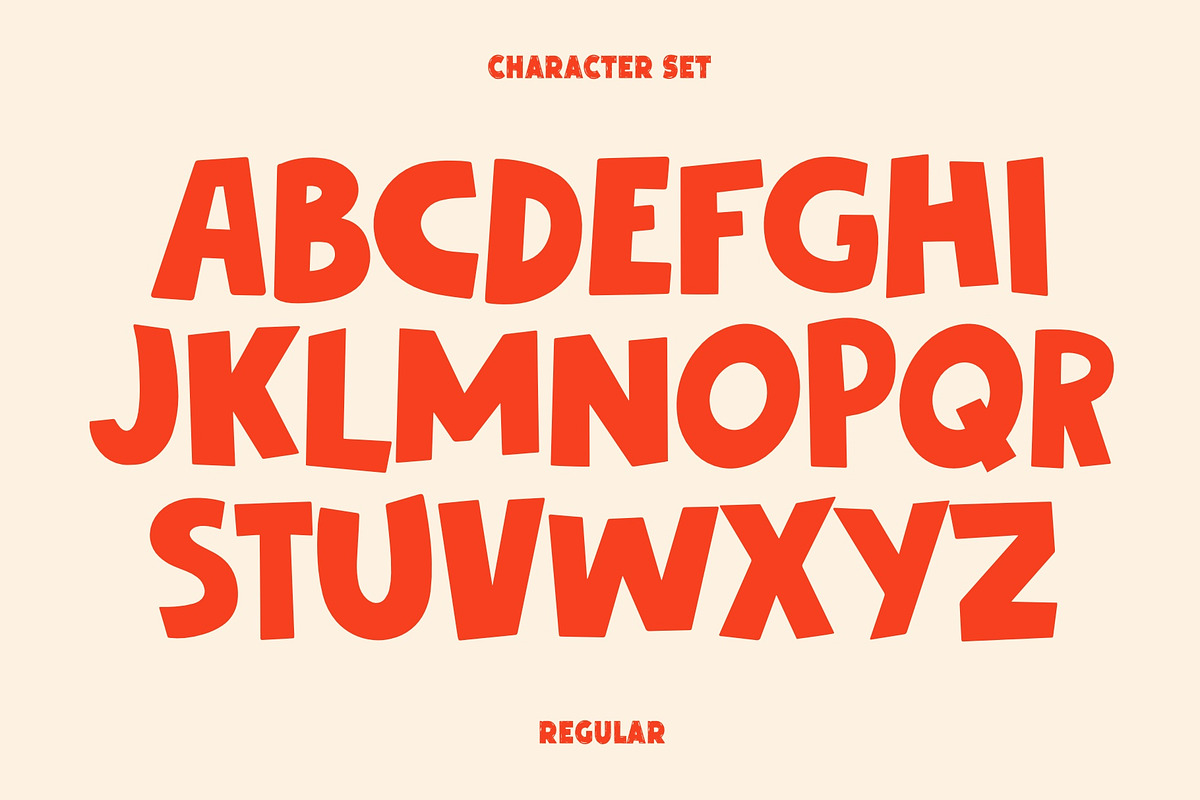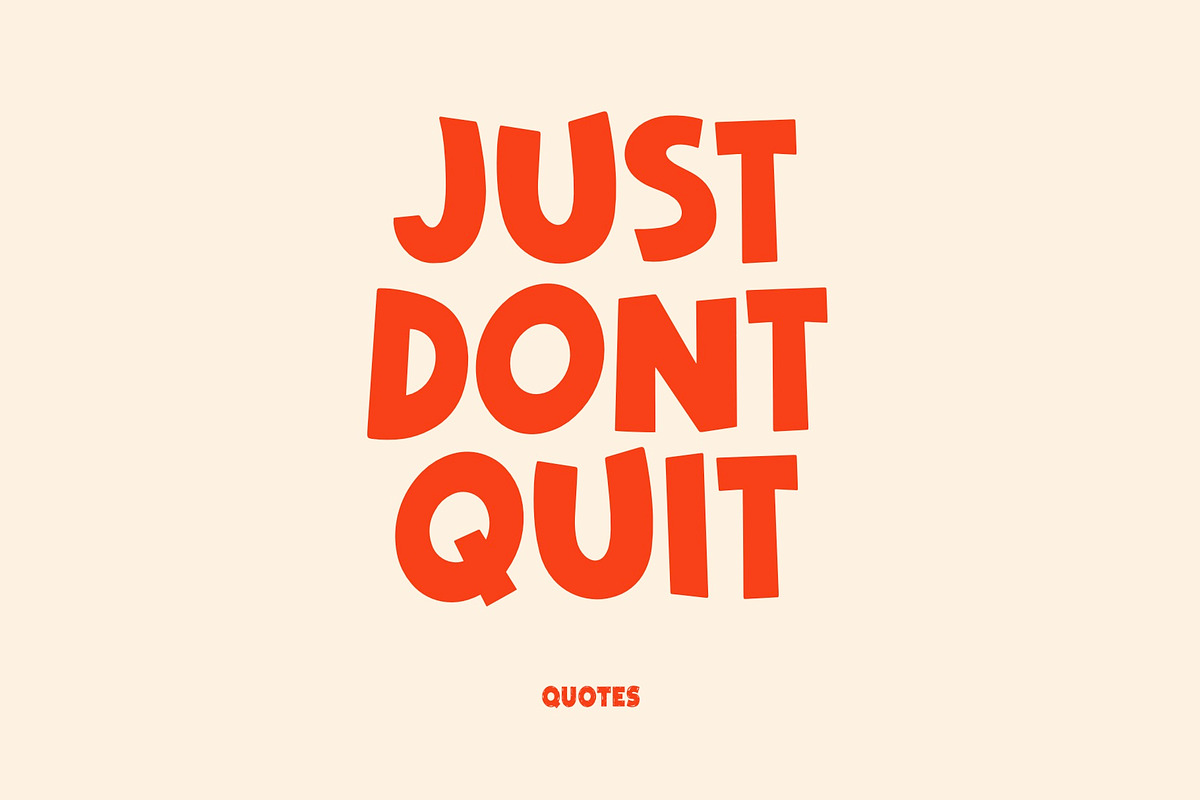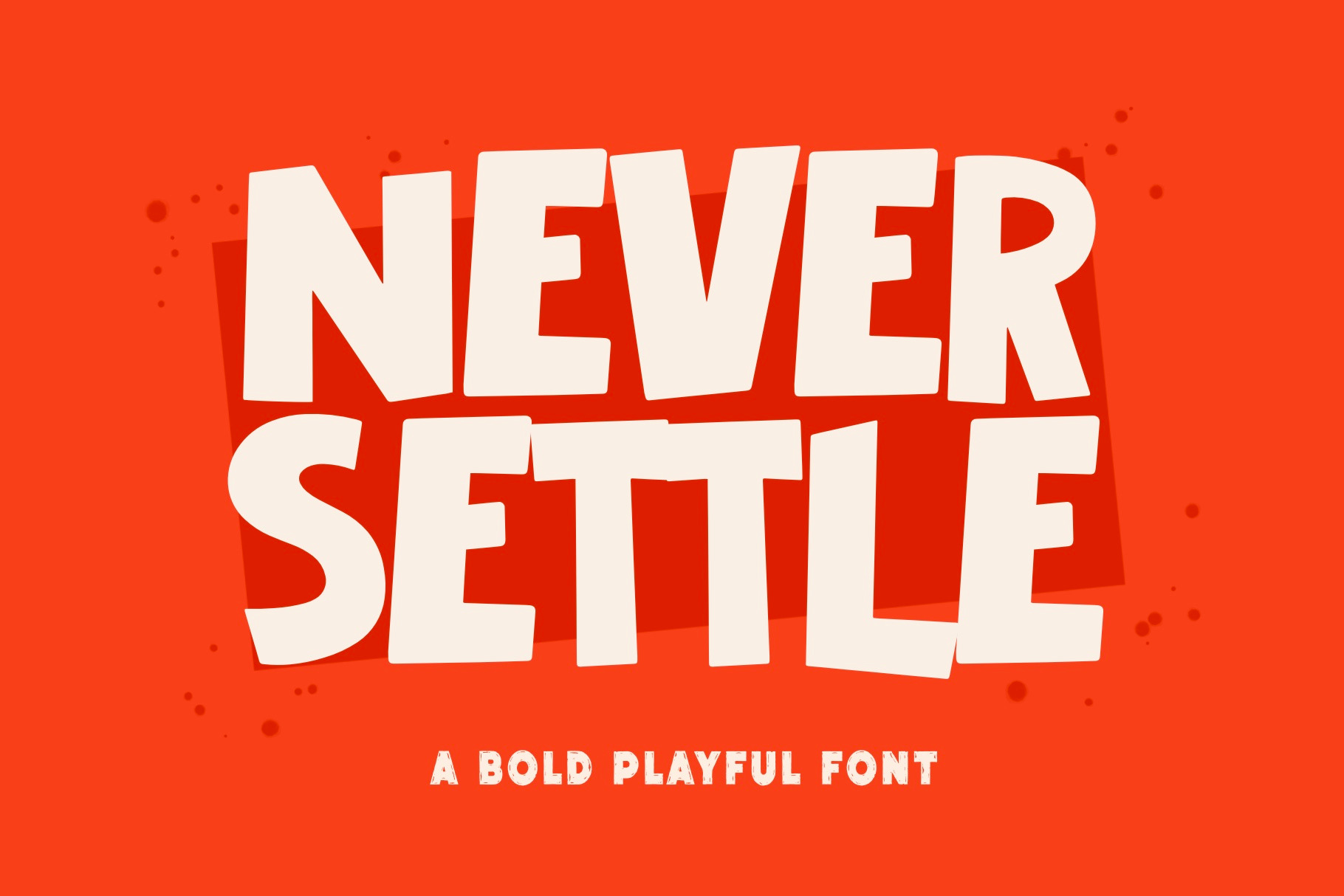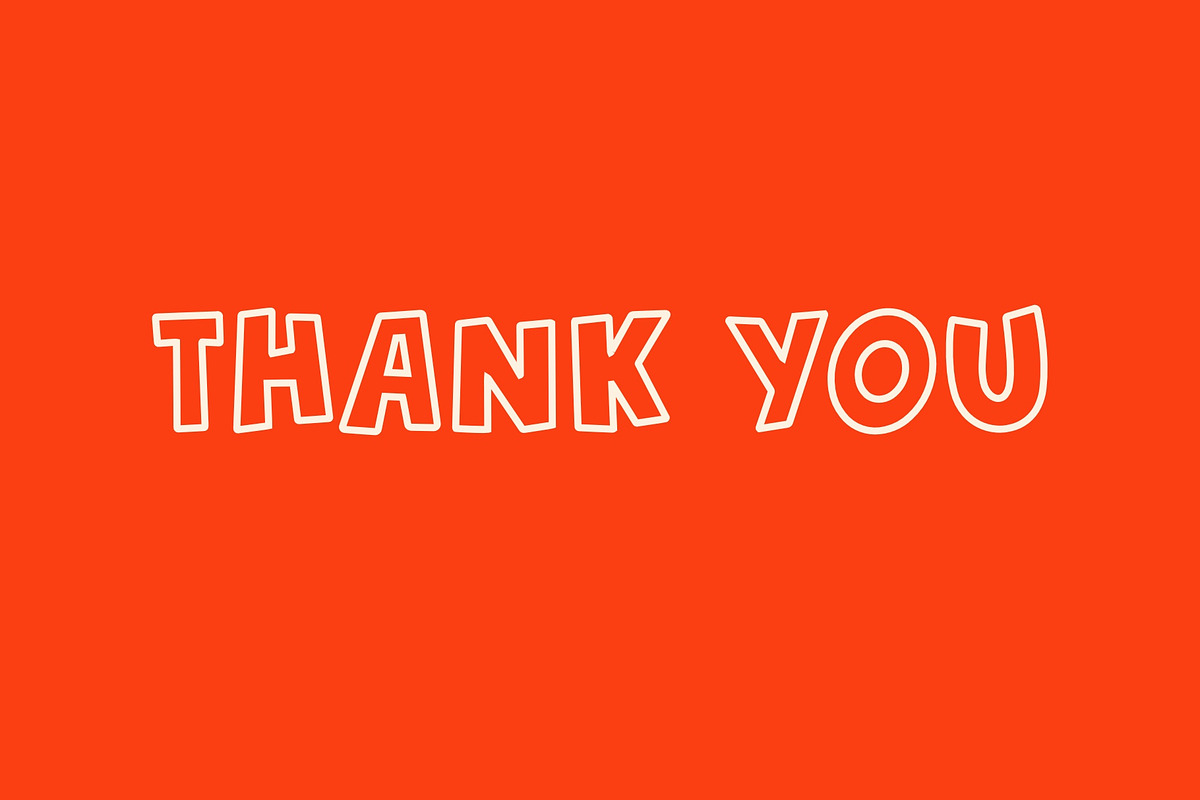
Never Settle Font - Sans Serif Font
Never Settle is a remarkable Sans Serif Font Bold Style that effortlessly captures attention with its bold and assertive design. This typeface available in SVG format, compatible with advanced tools such as Cricut and Glowforge, and for use in Procreate. Crafted with precision and a commitment to excellence, this font exudes a sense of confidence and modernity. The bold weight of the characters adds a strong and impactful visual presence, making it ideal for headlines, banners, and any design element that demands attention.